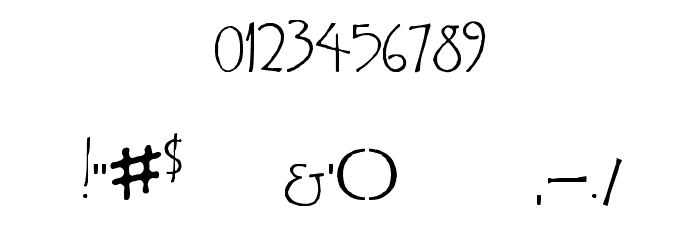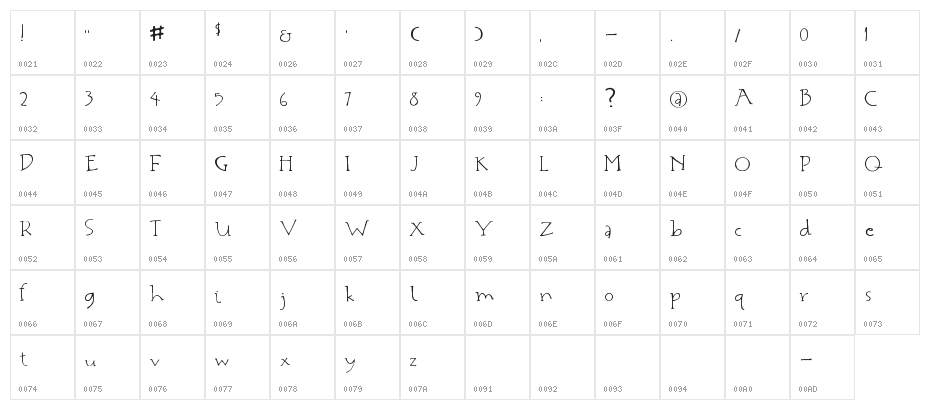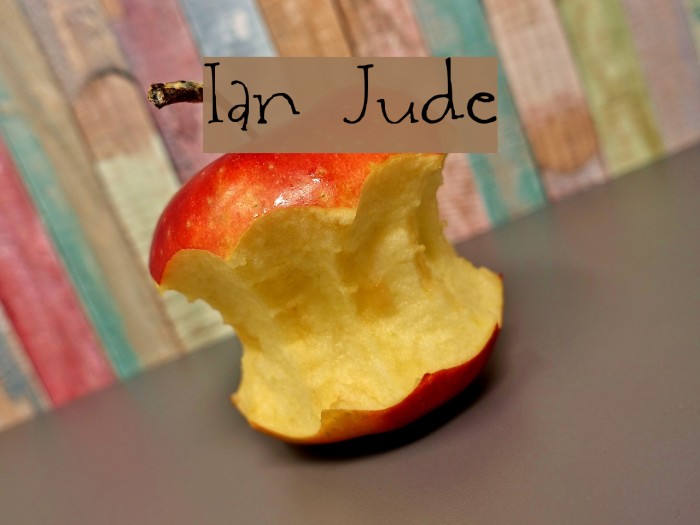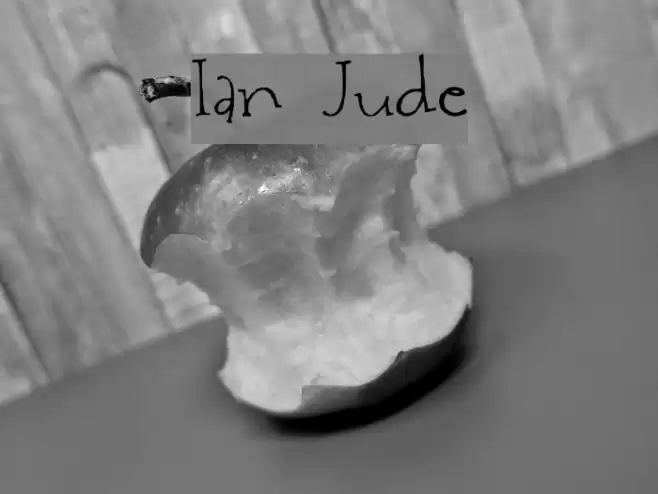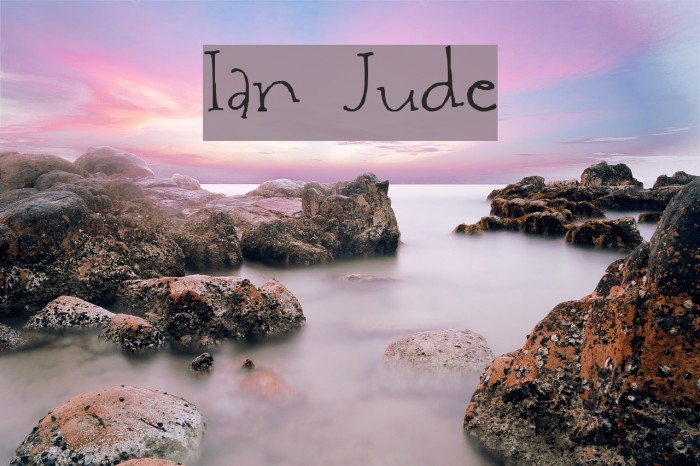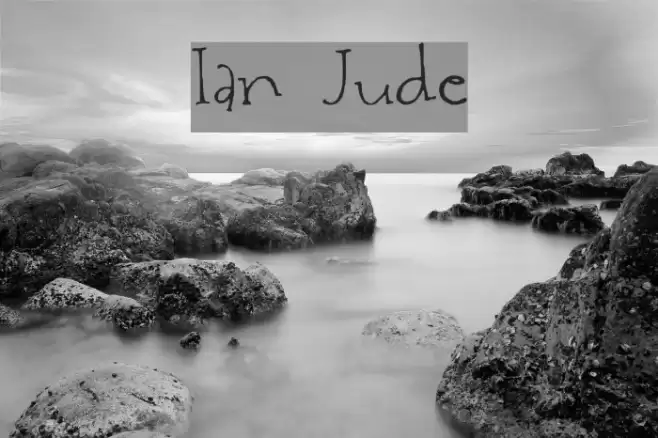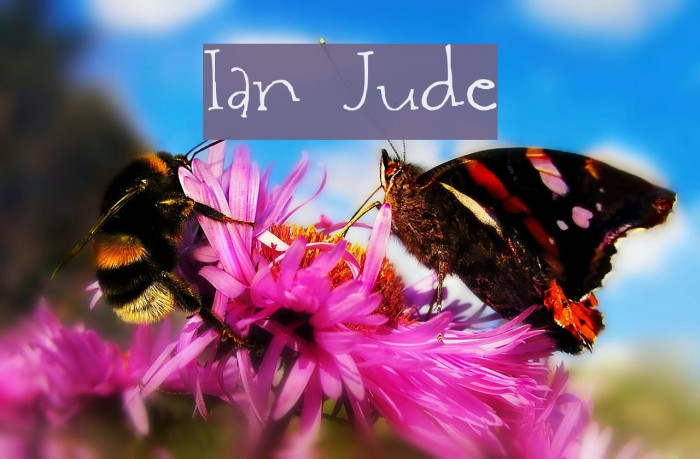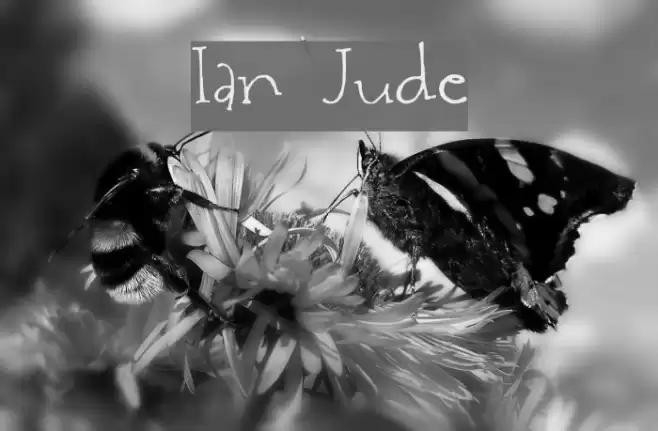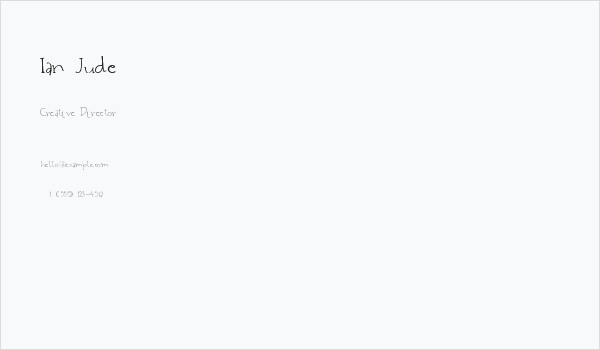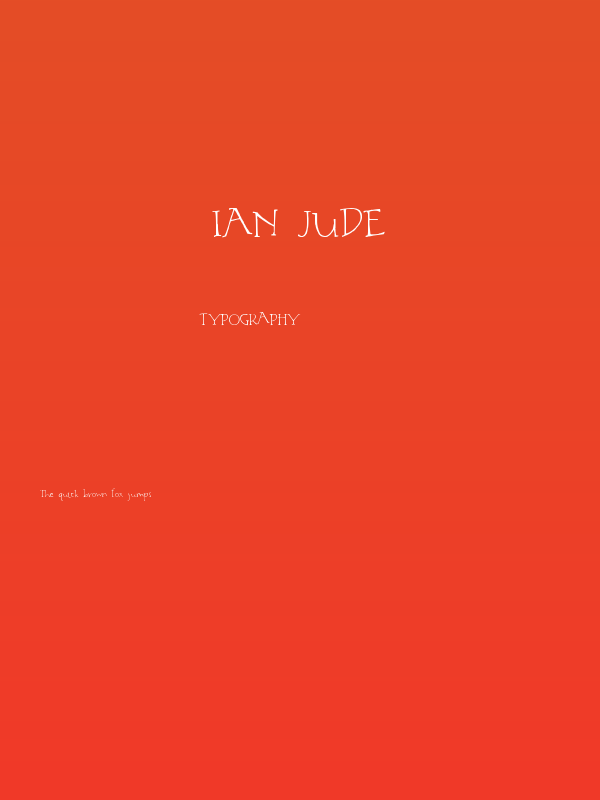
Ian Jude Font
Ian Jude Description
This font features a whimsical and playful design, characterized by its irregular strokes and slightly uneven baseline, giving it a hand-drawn appearance. The uppercase letters are tall and slender, with a slight tilt that adds to the casual feel. The lowercase letters maintain the same playful style, with some characters like 'g' and 'y' having distinctive loops. The numerals are consistent with the overall style, maintaining the quirky, hand-crafted look. Special characters are creatively designed, adding to the font's unique charm. This font is perfect for projects that require a touch of personality and creativity.
| Overall Style | Playful, Creative |
| Proposed Projects | Ideal for children's books, greeting cards, playful branding, and creative posters. |